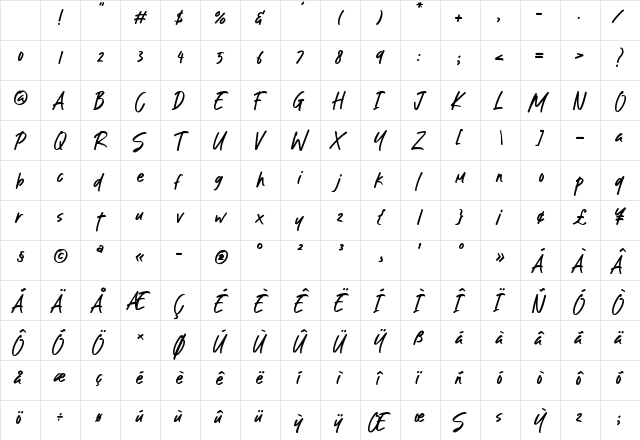
Hey Jelitta Demo Regular Free Font
Hey Jelitta Demo Regular
Designer: (MJB Letters). 2023. (Muhammad Mujibulloh)
Complete Hey Jelitta Demo Regular glyph index. Displaying only characters natively supported by Hey Jelitta Demo Regular font.
Design Context for Hey Jelitta Demo
Hey Jelitta Demo is a composed and adaptable typeface that performs quietly and consistently across a wide range of design contexts.